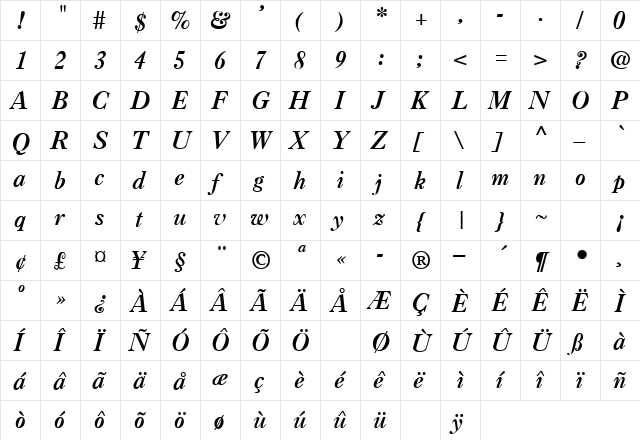
CASLONA Regular
Design Context for CASLONA Typeface
CASLONA takes a measured approach to typography — its balanced proportions and neutral character make it a reliable workhorse for both digital and print work.